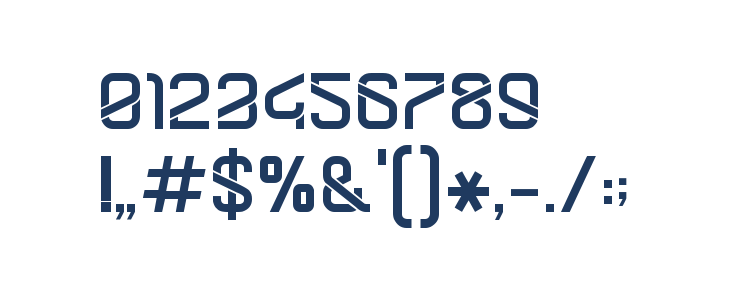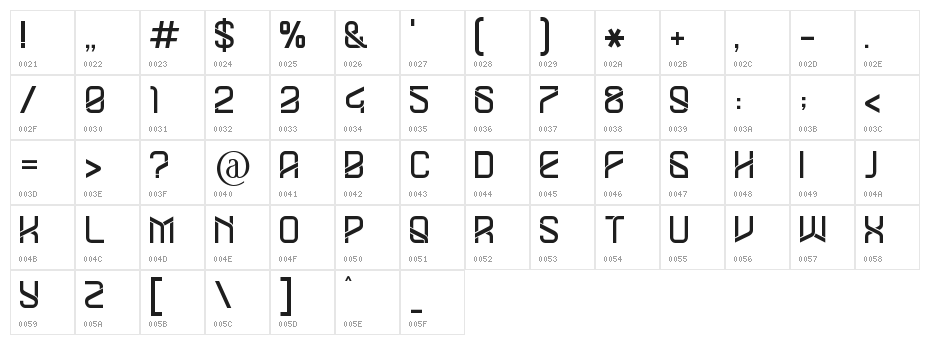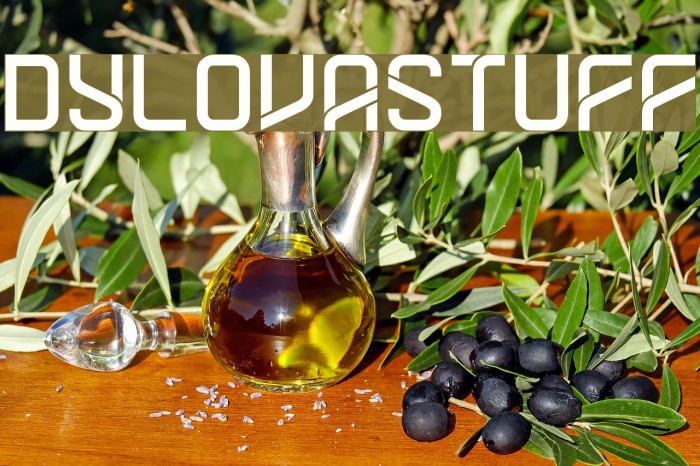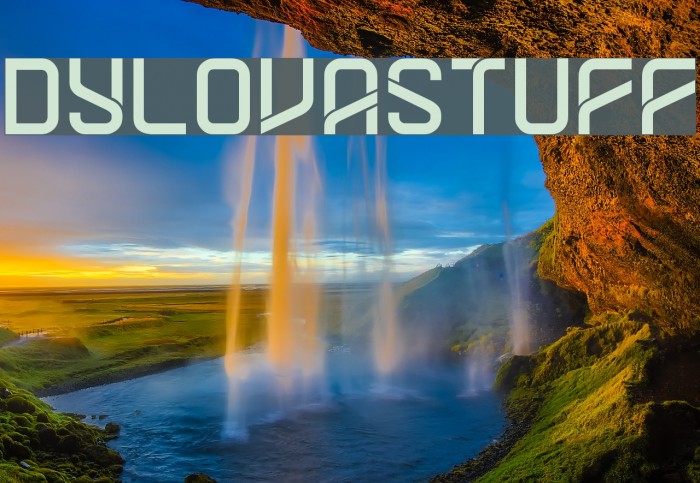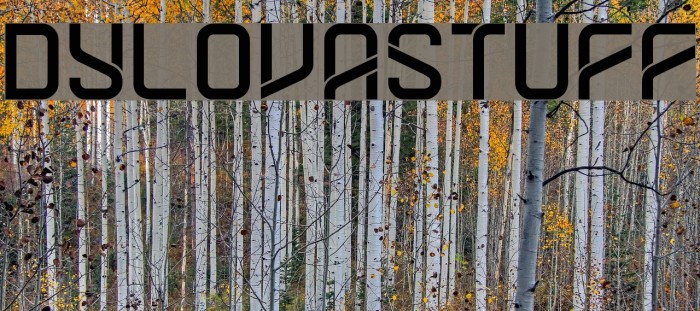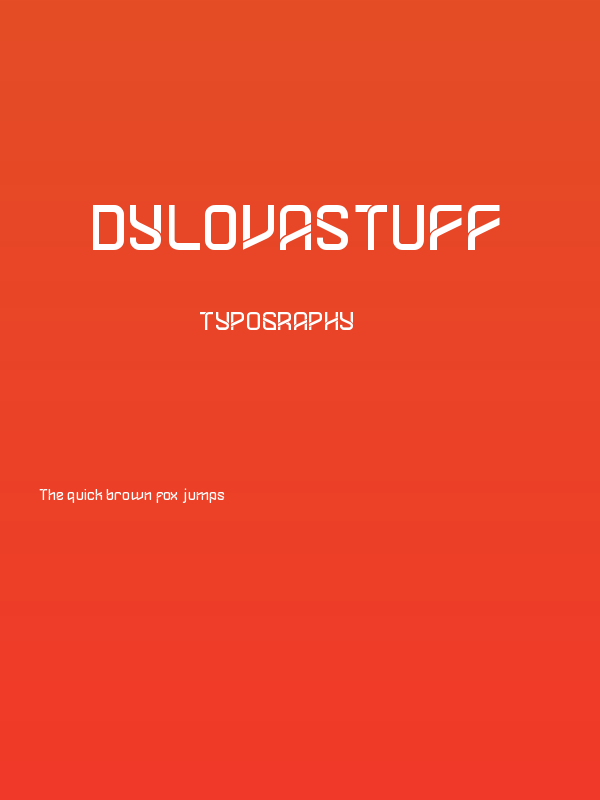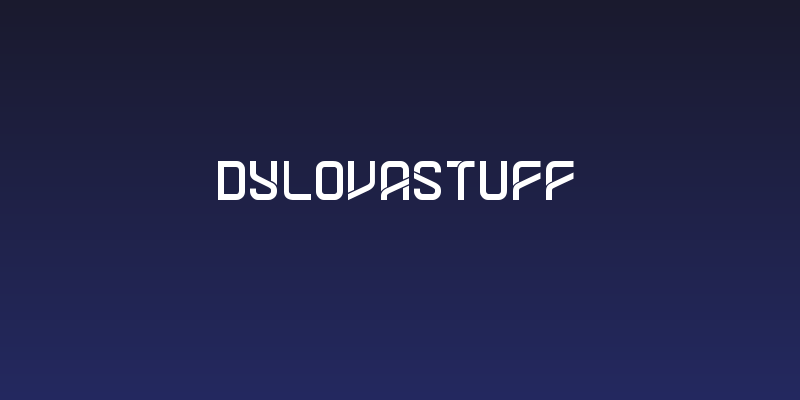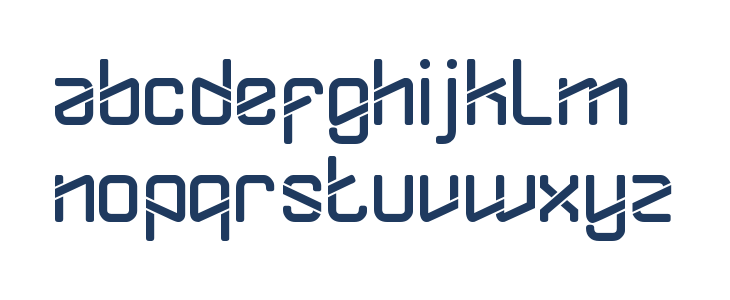
DYLOVASTUFF Font
DYLOVASTUFF Description
This font features a modern and futuristic design with a unique geometric style. Each character is constructed with clean, angular lines and distinct diagonal cuts that create a sense of movement and dynamism. The uppercase and lowercase letters maintain a consistent height, contributing to a uniform appearance. The numerals and special characters follow the same design principles, ensuring a cohesive look across all glyphs. The font's structure is bold and impactful, making it suitable for attention-grabbing designs. Its distinct style is perfect for projects that require a contemporary and innovative touch.